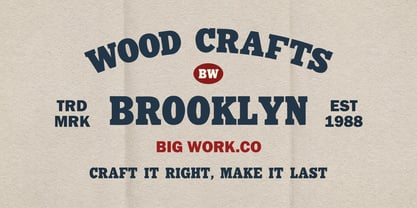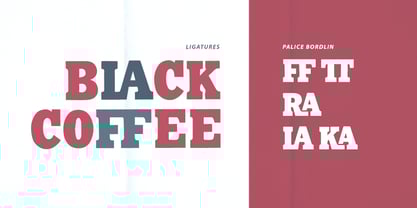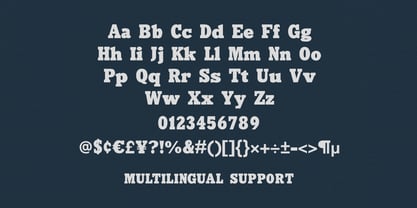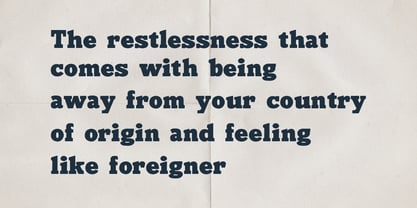
MC Palice Brodlin
by Maulana Creative
The MC Palice Brodlin Font Family was designed by Gilang Maulana and published by Maulana Creative. MC Palice Brodlin contains 1 styles. More about this family
Bring a touch of classic heritage to your modern designs with Palice Bordlin. Palice Bordlin is a powerful, bold display serif font that radiates a timeless vintage charm. Inspired by traditional letterpress and classic mid-century typography, this typeface is meticulously crafted with thick, sturdy strokes and distinctive serifs to ensure your message stands out with authority and elegance. Whether you are designing a rugged brewery logo, a sophisticated coffee house menu, or a bold sports headline, Palice Bordlin offers the perfect balance of grit and grace. It comes packed with unique ligatures and multilingual support, giving you the creative flexibility to craft truly bespoke layouts.
Designers: Gilang Maulana
Foundry: Maulana Creative